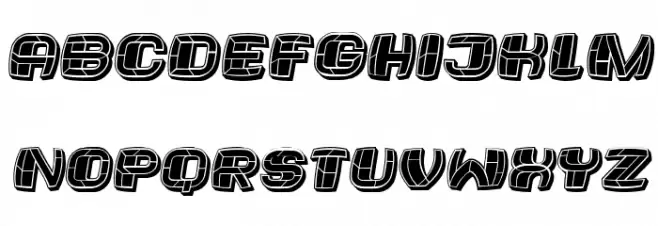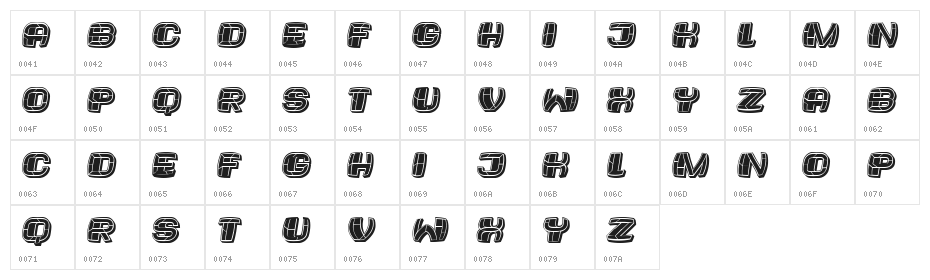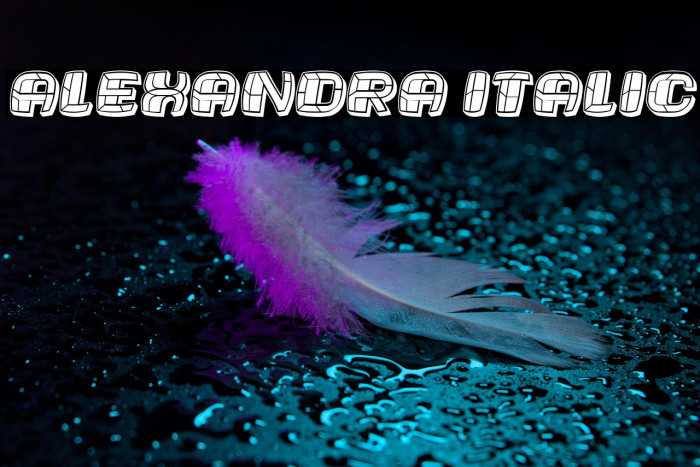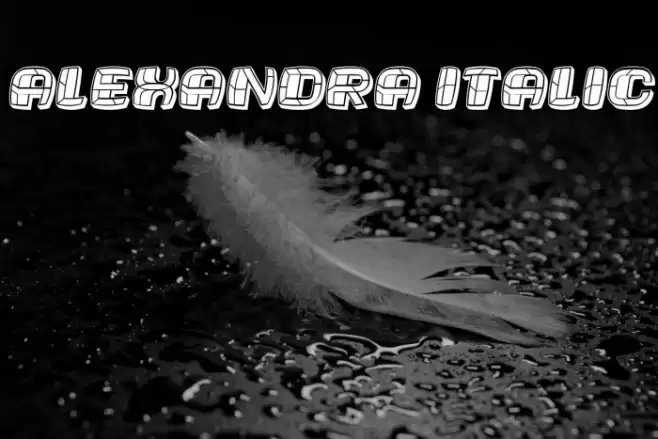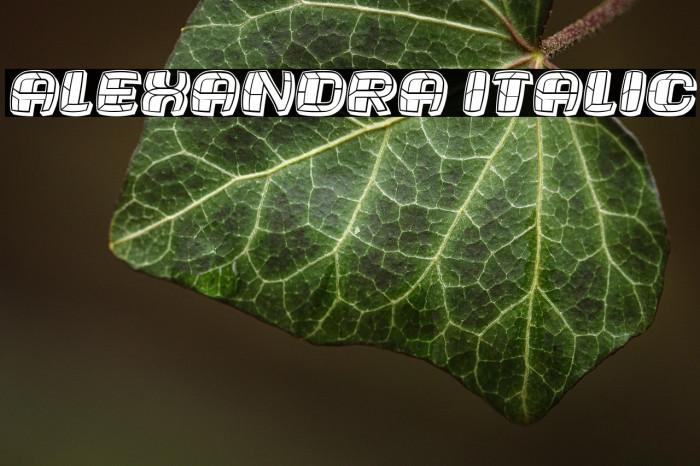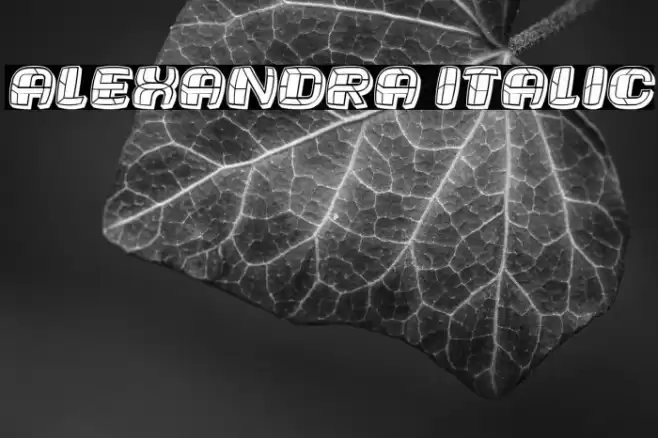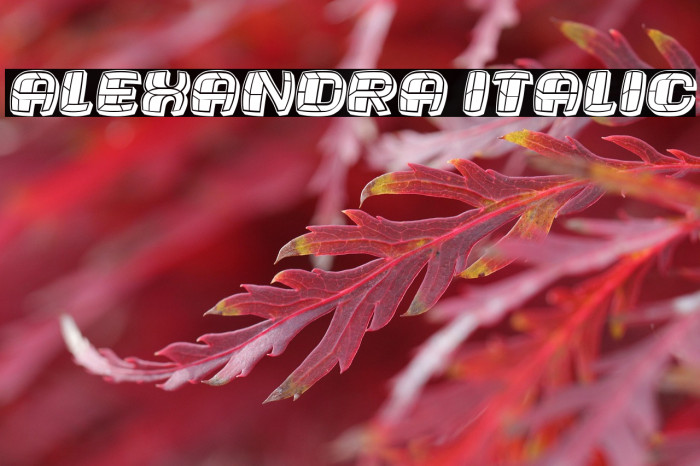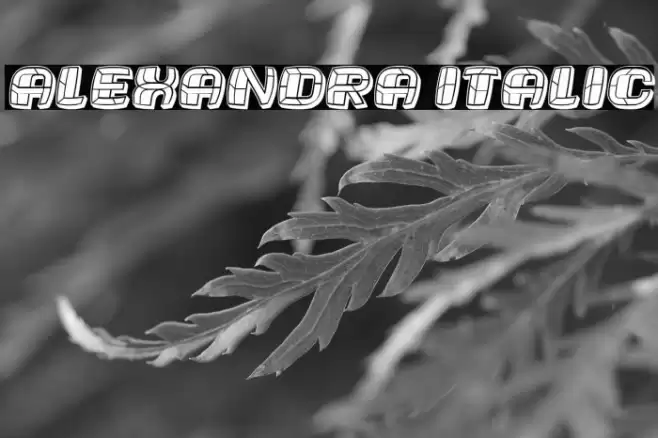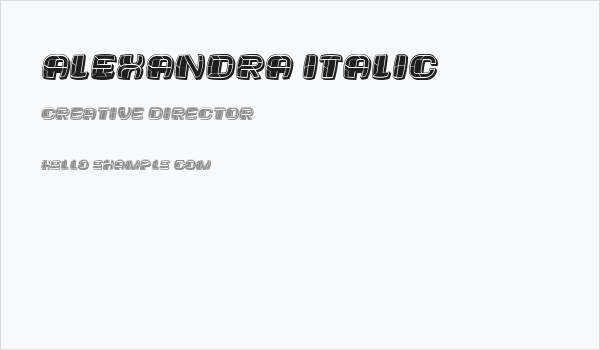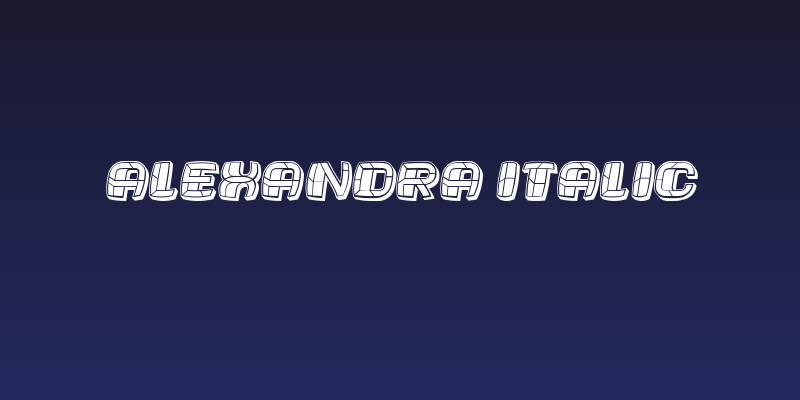
Alexandra Italic Font
Alexandra Italic Description
This font features a bold, three-dimensional style with a distinct italic slant, creating a dynamic and modern appearance. The characters are outlined with a thick black border, giving them a strong presence. The interior of each letter is filled with a series of parallel lines, adding depth and texture. The overall design is geometric and structured, with consistent angles and curves that maintain readability while offering a unique visual appeal. This font is well-suited for projects that require a bold statement and a contemporary look.
| Proposed Projects | Ideal for headlines, posters, branding, and any design needing a striking, modern typeface. |